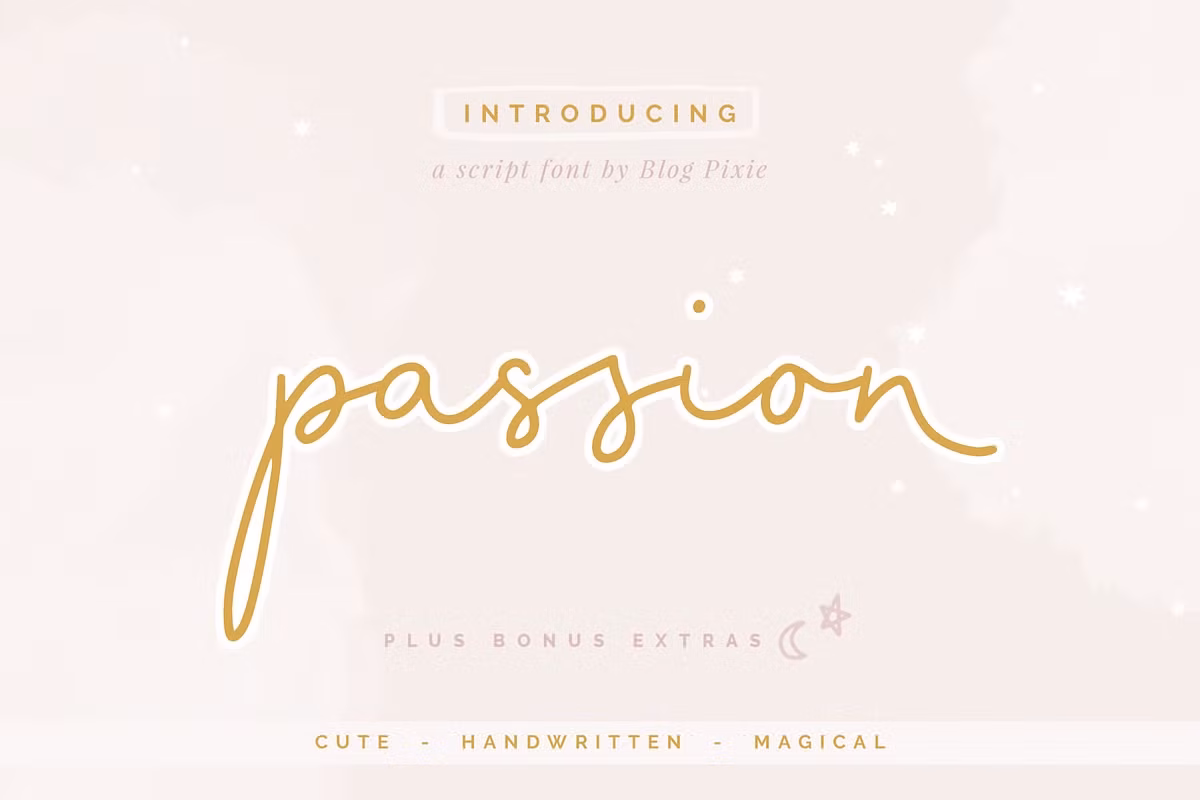
Passion Script Font Free Download
Passion Script Font Free Download is a flowing, elegant script typeface that captures the beauty of modern calligraphy. With its graceful strokes and sophisticated curves, Passion Script is perfect for wedding invitations, greeting cards, branding, social media content, and any project that requires a romantic, handwritten touch.
Its smooth, fluid style adds warmth and personality to your designs, making it ideal for both digital and print applications. Whether you're creating elegant stationery or eye-catching logos, Passion Script will give your work a timeless and heartfelt feel.